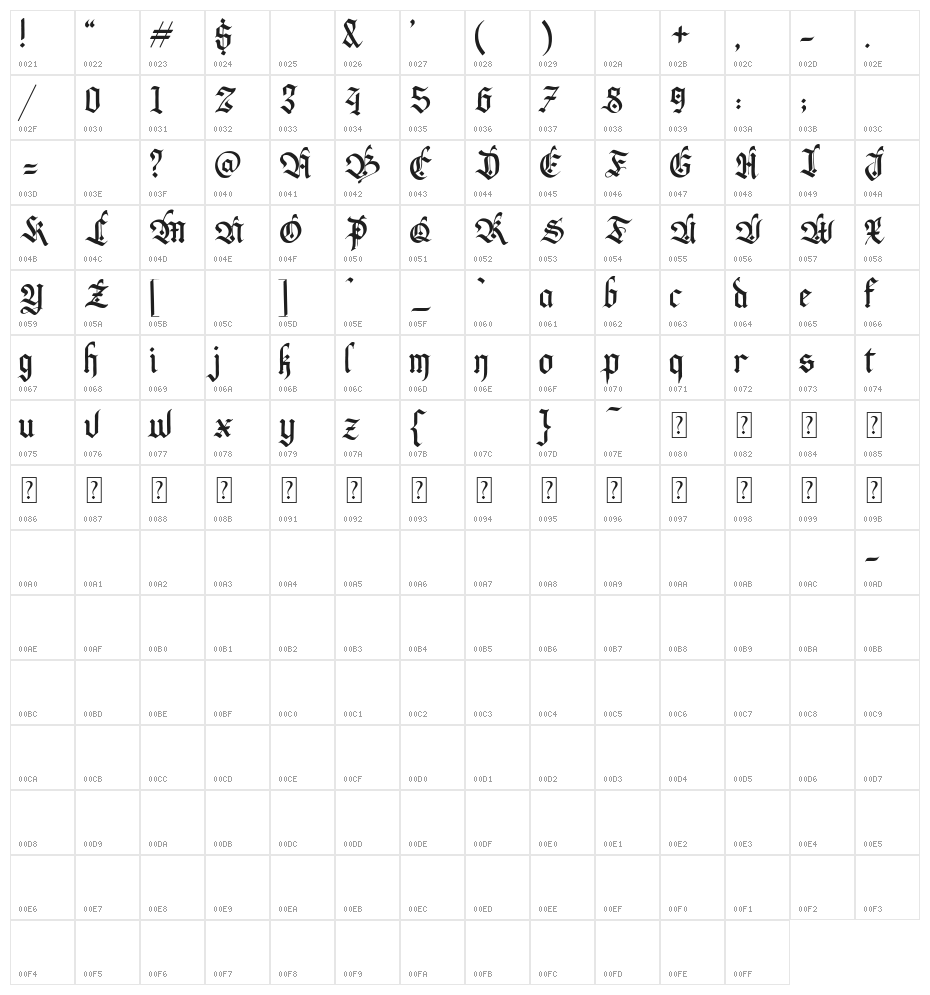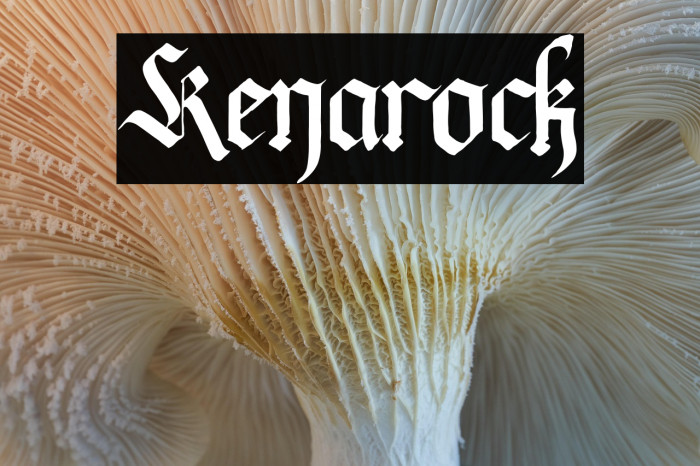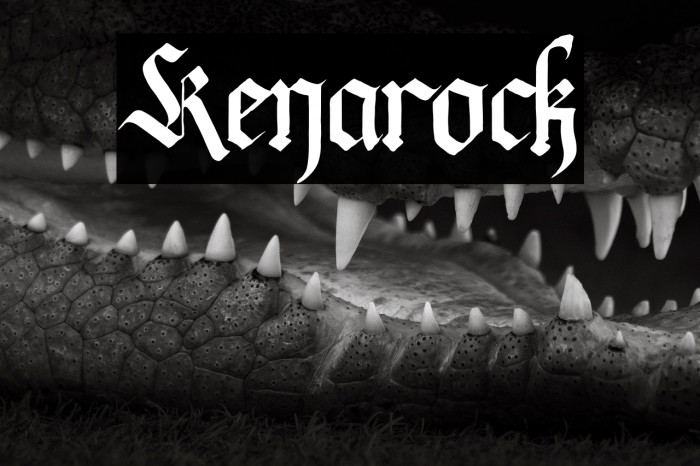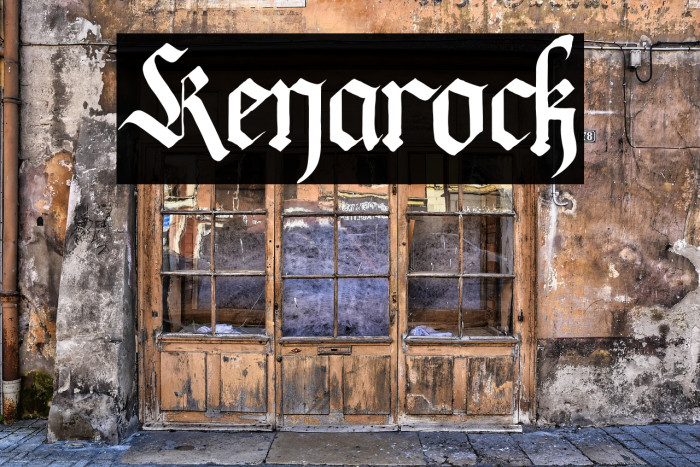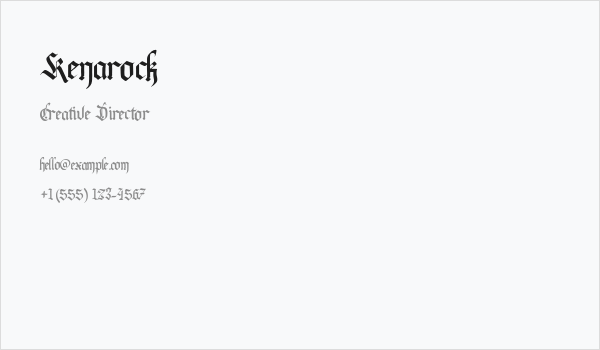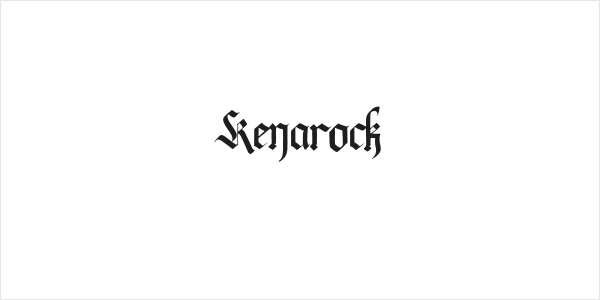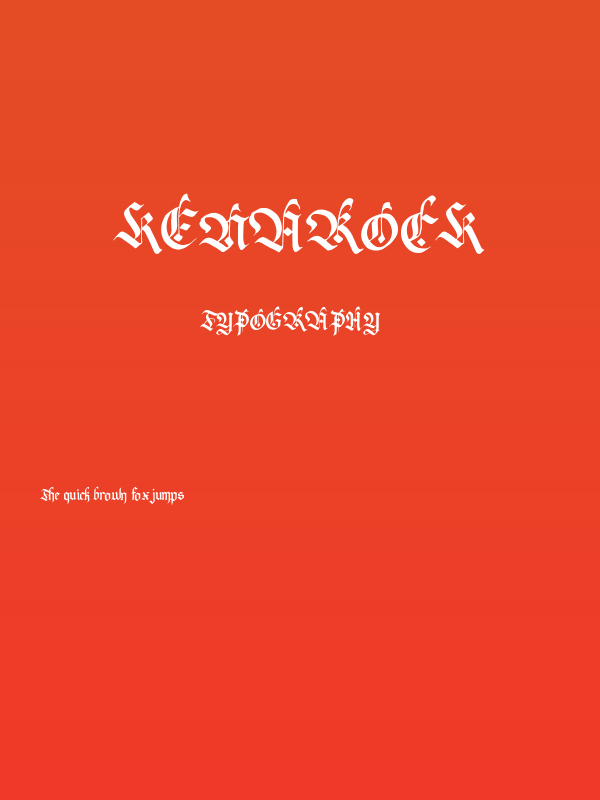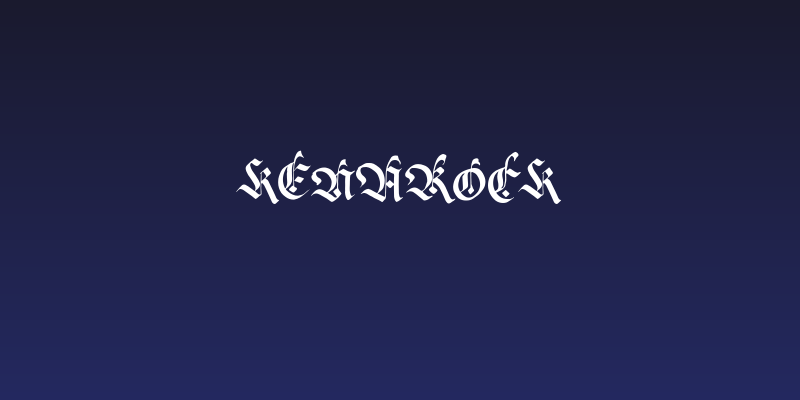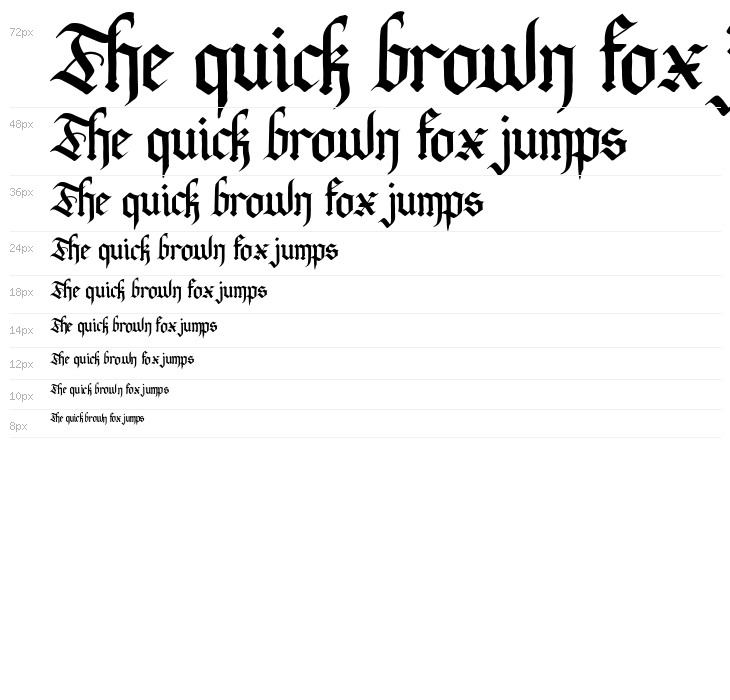
Kenarock Font
Kenarock Description
This font embodies the traditional and intricate style of Blackletter typography, characterized by its ornate and angular letterforms. The uppercase letters are bold and dramatic, with sharp, pointed serifs and elaborate flourishes that give a sense of historical gravitas. The lowercase letters maintain the same level of detail, with a consistent stroke width that enhances readability while preserving the decorative nature of the font. The numerals are equally stylized, matching the overall aesthetic with their gothic curves and edges. Special characters are designed with the same attention to detail, ensuring a cohesive look across all glyphs. This font is perfect for projects that require a touch of medieval or gothic flair, such as historical documents, themed event invitations, or branding for products that wish to evoke a sense of tradition and craftsmanship.
| Overall Style | Vintage |
| Proposed Projects | Ideal for historical documents, themed event invitations, or branding that evokes tradition. |